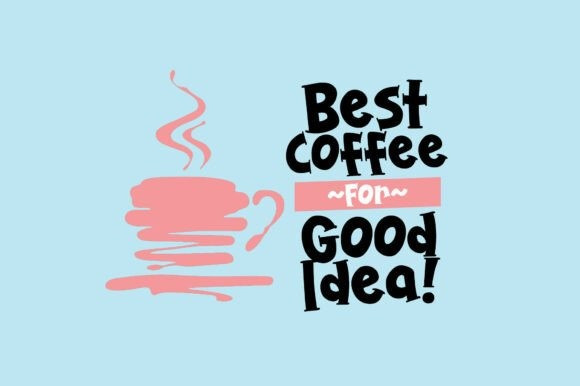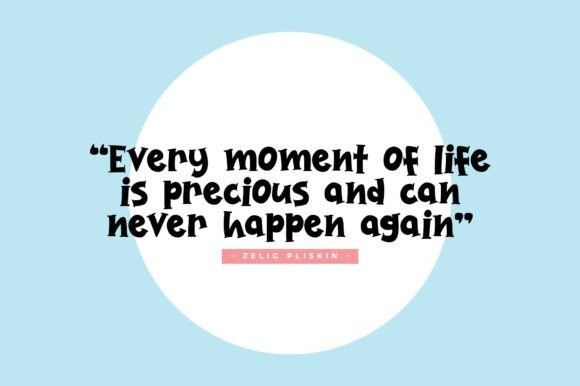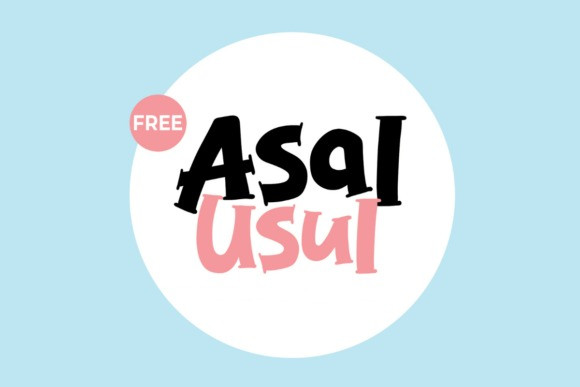
Asal Usul Font is a modern and cute display font perfect for posters, logos, magazines, book covers, banners, and many more!Get this amazing font, and use it to create lovely designs. It can easily be matched to an incredibly large set of projects, so add it to your creative ideas and notice how it makes them stand out!
Asal Usul Font
| Classification: | Display Fonts, Kids Fonts, Modern Fonts |
Asal Usul